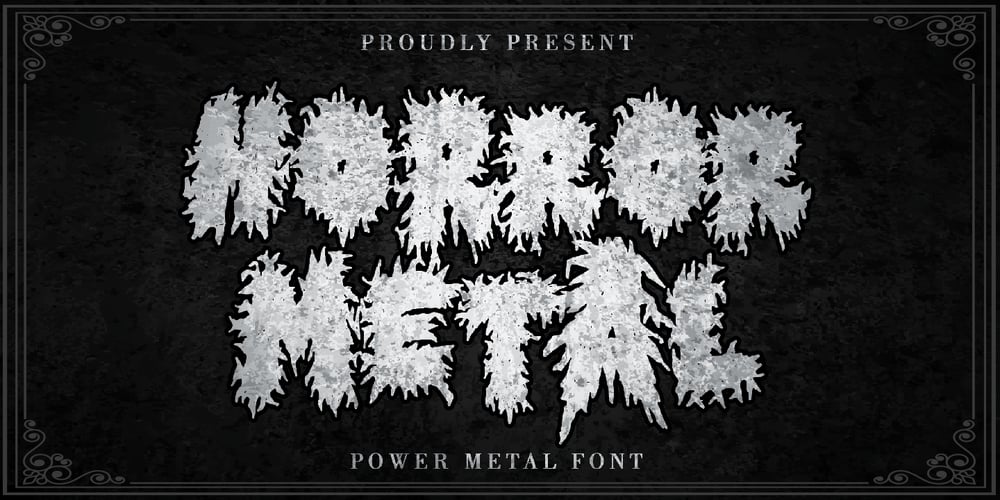
Horror Metal Font Family was designed by Thomas Aradea and published by Letterara. Horror Metal contains 1 styles and family package options. Horror Metal is a brush font with a bold weight font that’s perfect for any horror or metal designs! As its name suggests, Horror Metal is not a font for the faint-hearted. In fact, using this metal-style display font requires courage and bravery.